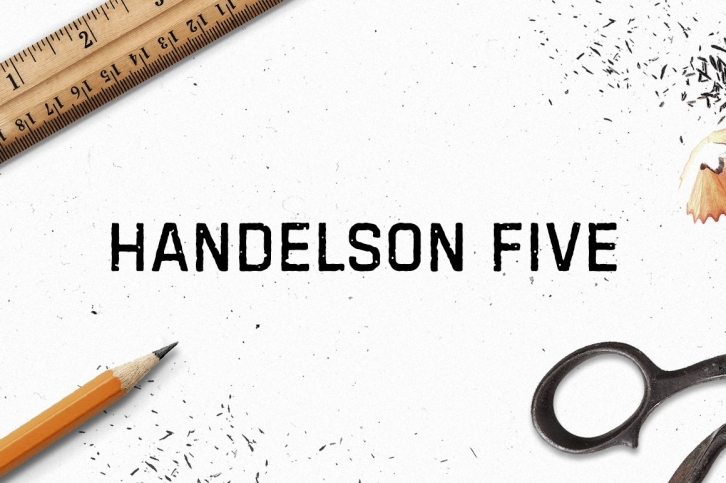
Handelson Five is a all caps industrial sans serif with printed texture. It has two sets upper cases that varies when you have enabled Contextual Alternates at OpenType panel.
Handelson Collection has 6 handmade typefaces with authentic and organic feel. It contains three scripts, one non-connected script and two all caps geometric sans serifs (Block letters). Textures and rough edges are emulating handwritten and printed looks. By combining these fonts you can make diverse typographic solutions and elements with unified style.
All the non-connected fonts; Handelson Two, Handelson Four, Handelson Five and Handelson Six has two sets of characters. By enabling Contextual Alternates from the OpenType panel you can make these letters to varie randomly to make your text look more like a real handwriting.